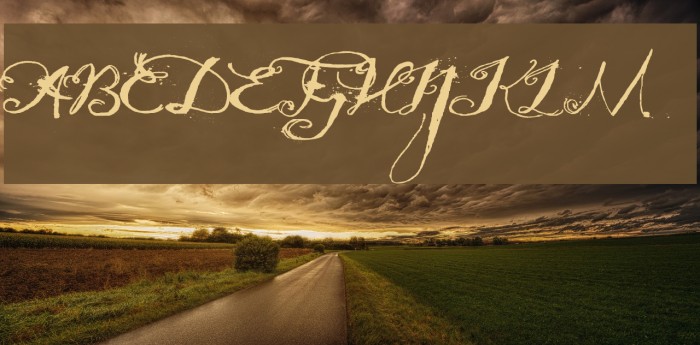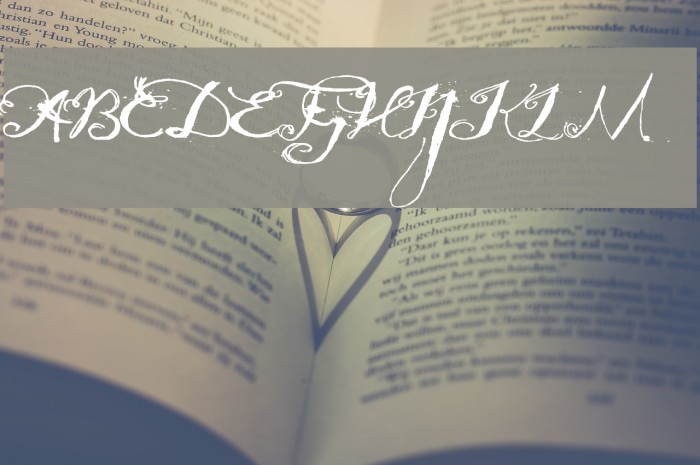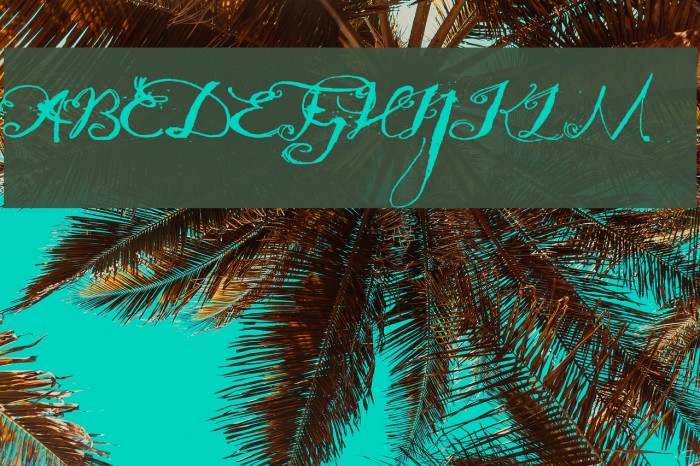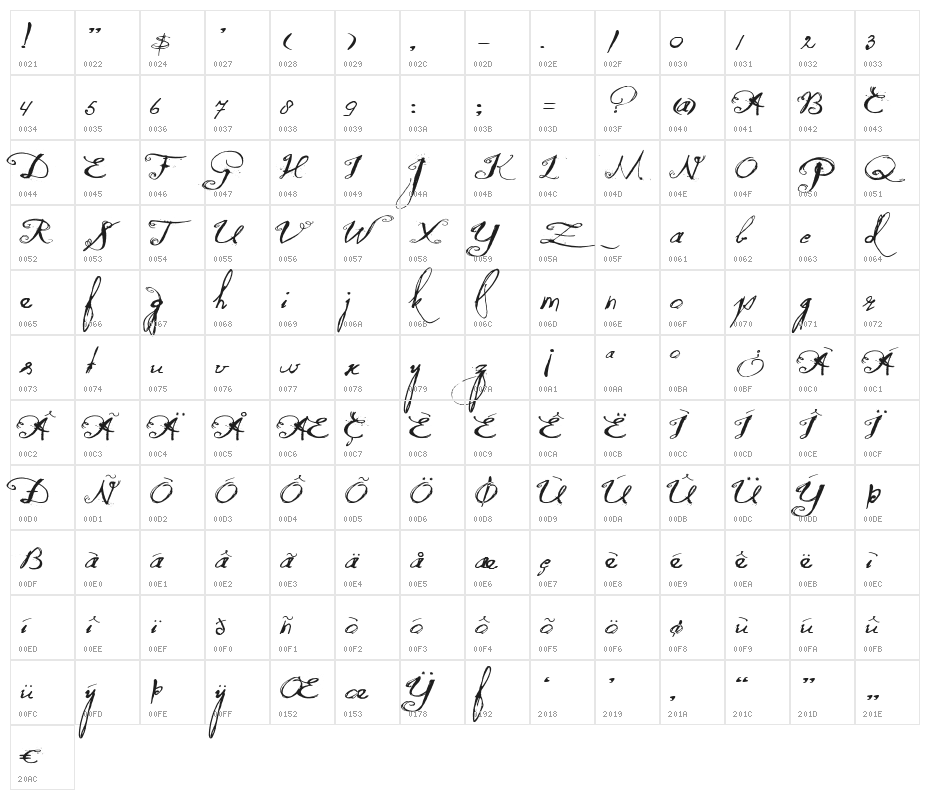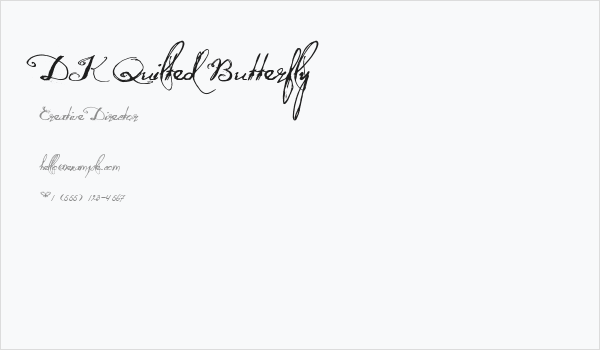
DK Quilted Butterfly Font
This font features an intricate and decorative style, characterized by elaborate swirls and flourishes that give it a whimsical and artistic appearance. The uppercase letters are adorned with butterfly-like embellishments, adding a unique and playful touch. The lowercase letters maintain a similar decorative flair, with strokes that vary in thickness, creating a dynamic and lively texture. The numerals are consistent with the overall style, featuring subtle curves and embellishments. Special characters, including punctuation marks, are designed with the same attention to detail, enhancing the font's cohesive look. This font is ideal for projects that require a touch of elegance and creativity.
A decorative font with whimsical swirls and butterfly embellishments.
- Proposed Projects: Ideal for invitations, greeting cards, artistic posters, and branding materials that require a creative and elegant touch.
- Use Case: Headlines, Artistic projects, Invitations